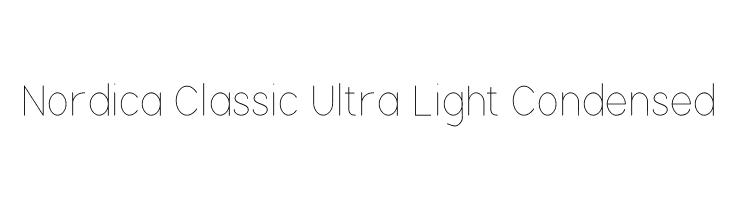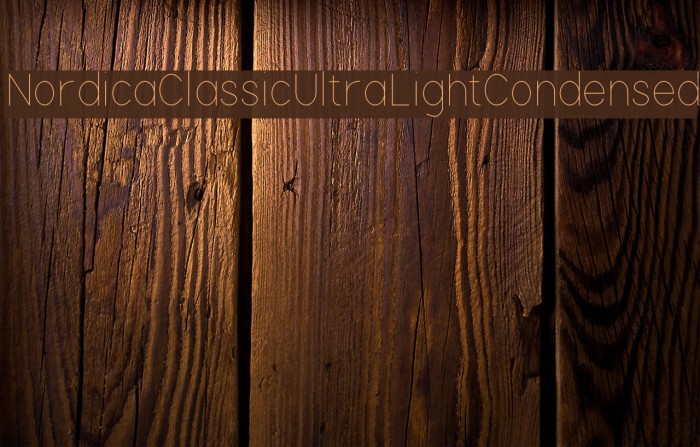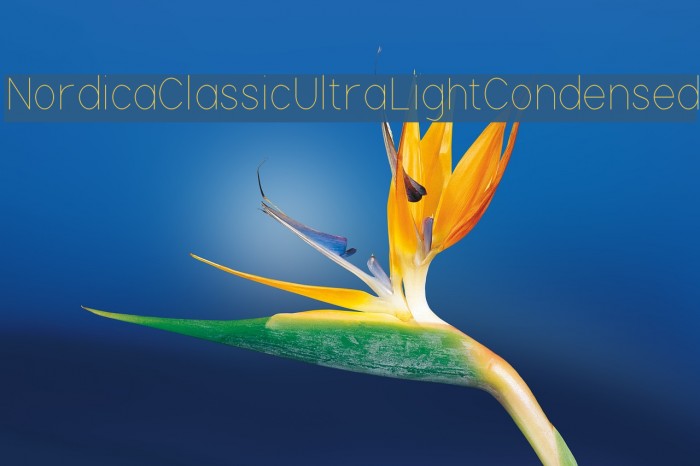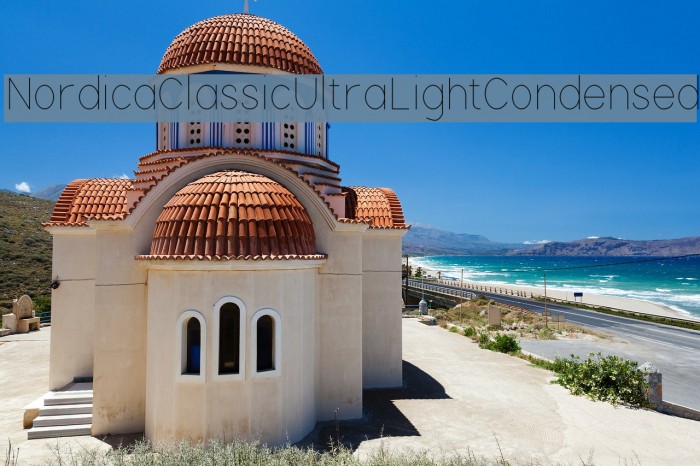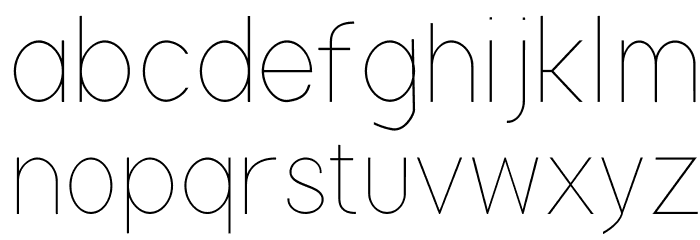
Nordica Classic Ultra Light Condensed Font
This font features a sleek and modern design with ultra-light strokes that give it an airy and minimalist appearance. The characters are condensed, allowing for efficient use of space while maintaining readability. The clean lines and geometric shapes contribute to a contemporary aesthetic, making it suitable for a wide range of design applications. The uniformity in stroke width across all characters provides a harmonious and balanced look. Its simplicity and elegance make it ideal for projects that require a sophisticated yet understated typeface.
A sleek, ultra-light, and condensed modern font with clean lines.
• Proposed Projects: Ideal for branding, editorial design, minimalist posters, and modern web design.
• Category: Sans-Serif
• Bold: No
• Italic: No
• Weight: Light
• Width: Condensed
• Character Spacing: Normal
• Contrast: Low
• Overall Style: Modern
• Use Case: Headlines, Body text, Logos